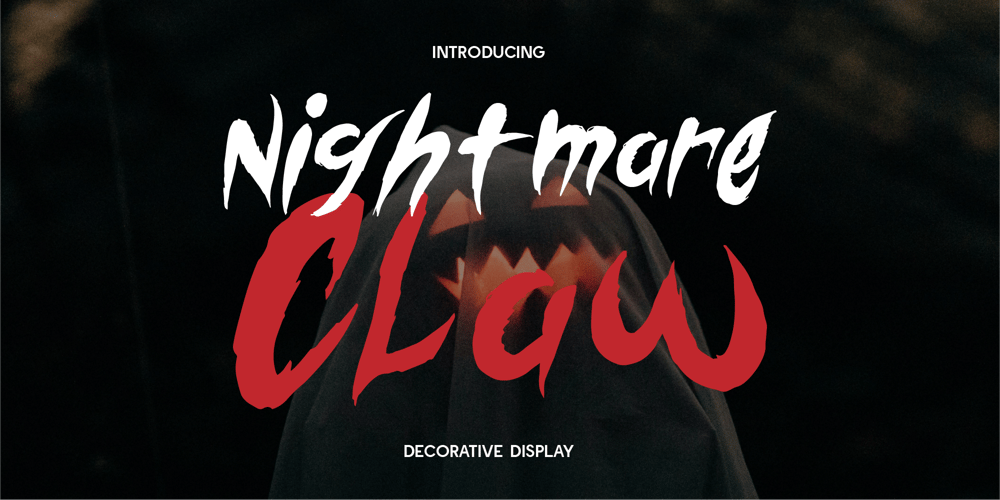
Nightmare Claw
Nightmare Claw font
Nightmare Claw Font Family was designed by Dede Kurniawan and published by Creatifont Studio. Nightmare Claw contains 1 styles and family package options. Nightmare Claw is a raw, handwritten display font with intense scratchy and grunge aesthetics. Its jagged and freeform strokes evoke a sense of chaos and fear, perfect for horror-themed projects, thriller posters, and spooky designs. The rugged texture of the letters mimics claw marks, giving your visuals an eerie, unsettling tone. This font brings an ominous, wild energy that will grip your audience’s attention, making it ideal for terrifying atmospheres and bold, haunting statements.A SUMMARY OF WHAT’S INCLUDED: Standard Character A-Z, a-z, 0-9, Punctuation & symbols Regular Style Multilingual Support with Accents and Diacritics Works on PC & Mac Simple installation Accessible in Adobe Creative Suite (Ai, Ps, Id, etc.) even work on Microsoft Word. PUA Encoded Characters – Fully accessible without additional design software. 🌟If you come across any issues or notice anything we might have overlooked while using this product, please feel free to reach out to us. We greatly value your feedback as it helps us enhance and refine our products. Thank you!